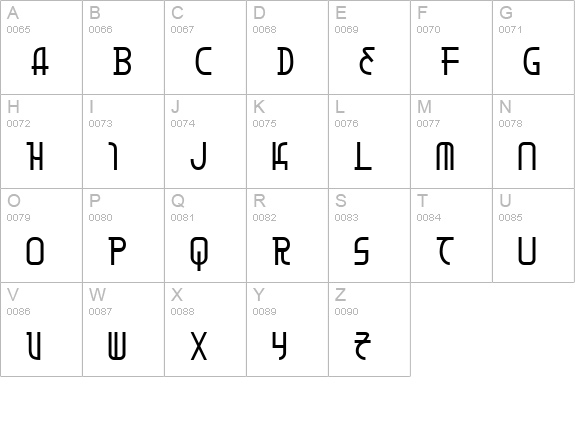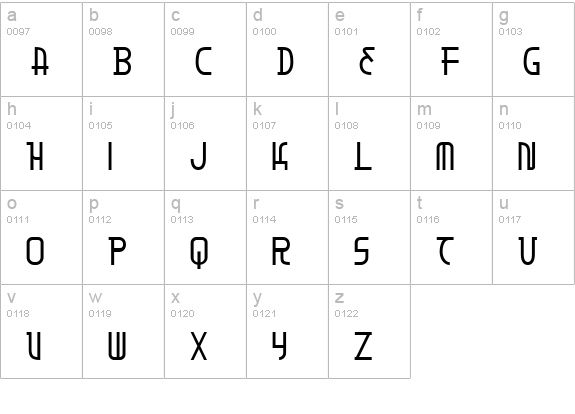
Moon Dart is a sleek and modern font that exudes sophistication and elegance. With its sharp angles and clean lines, this typeface is perfect for creating a bold statement in your designs. Whether you're working on a poster, logo, or branding project, Moon Dart will add a touch of contemporary flair. What sets Moon Dart apart is its versatility - it can be used for both headlines and body text, making it a practical choice for a wide range of design projects. The font's unique design elements give it a futuristic and avant-garde feel, setting it apart from more traditional typefaces. Best of all, Moon Dart is available for free download at FontsMarket.com. This means you can access this stylish font without any cost, making it a valuable addition to your font collection. So why wait? Download Moon Dart today and elevate your designs with its modern and sophisticated aesthetic.